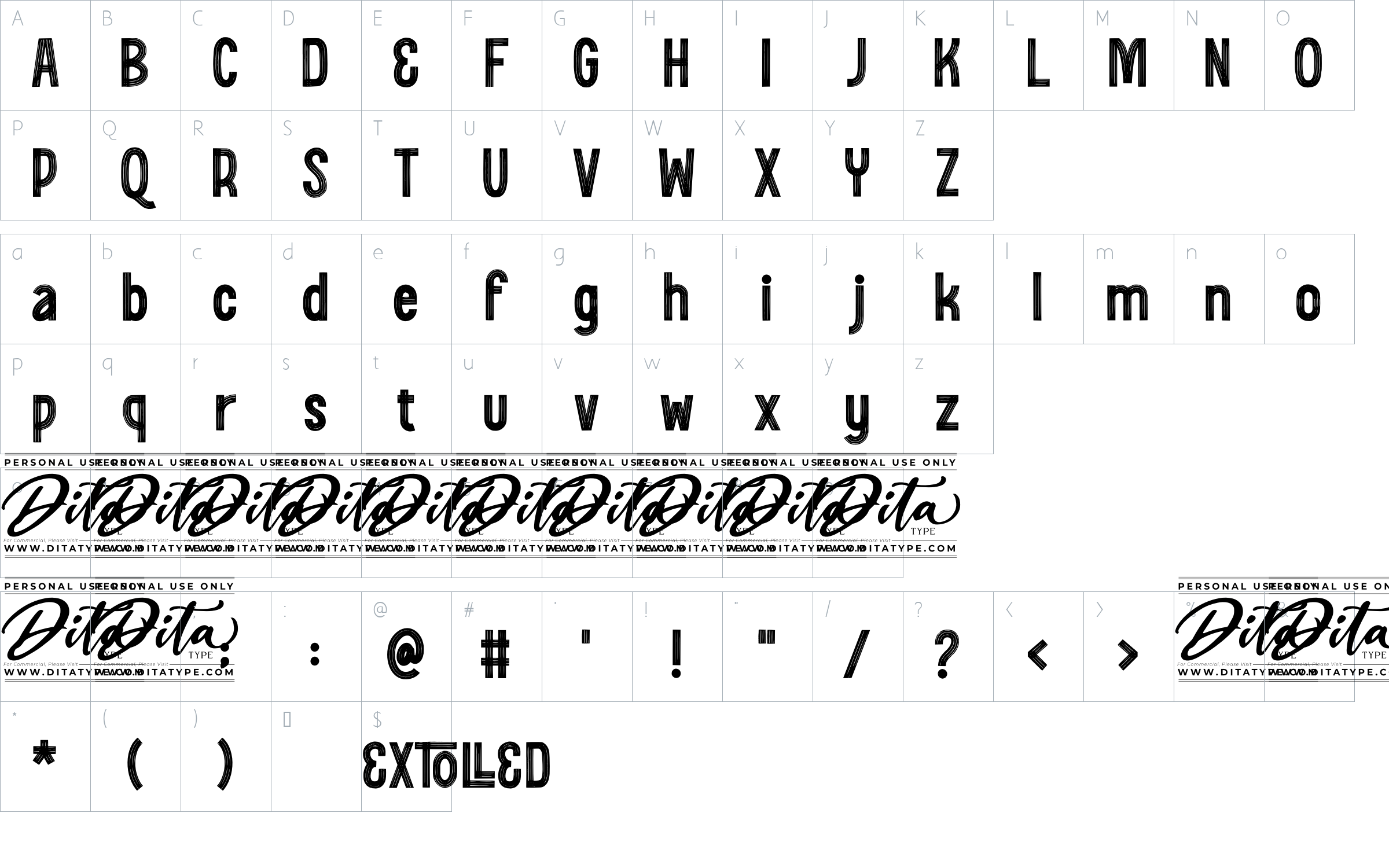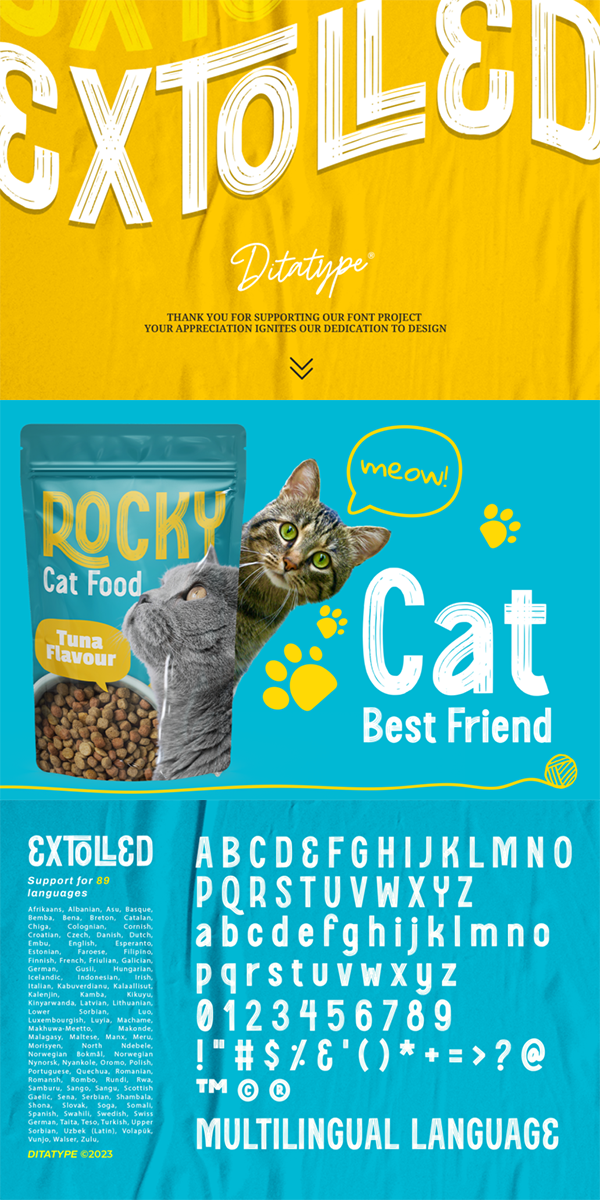
Extolled Font
About Extolled
Extolled is a remarkable display sans serif font that embodies a unique blend of strength and artistic flair. Designed with a fairly thick weight, this font ensures that your message is conveyed with authority and presence. The brush details within Extolled add a layer of depth and personality, breaking away from the rigidity of traditional sans serif fonts. These details infuse a subtle organic quality that captures the essence of handcrafted artistry.
The square shapes of Extolled letterforms give it a modern and architectural quality. The defined lines and crisp edges create a sense of stability and professionalism. Incorporating Extolled into your design projects is a surefire way to make a statement. In addition, enjoy the features here.
Extolled fits in headlines, logos, posters, flyers, branding materials, print media, editorial layouts, and many more designs. Find out more ways to use this font by taking a look at the font preview.